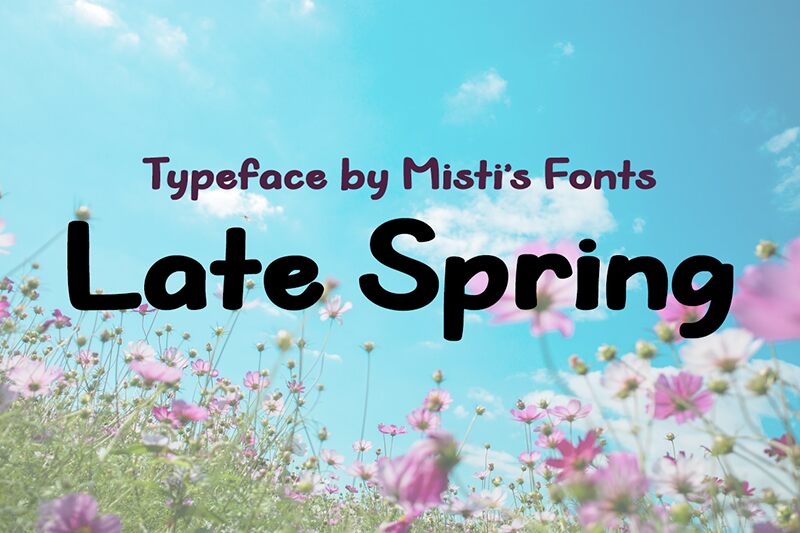
Late Spring font by Misti's Fonts is a free script font that beautifully balances friendly and informal design principles. Its inviting, approachable character makes it a captivating choice for creative projects, offering a casual and modern flair. With rounded and soft letterforms, this font brings a subtle elegance that fits contemporary design applications.
From event invitations and greeting cards to product packaging, branding, and advertising, Late Spring is versatile and adaptable. Its approachable style can also shine in comics, book covers, travel diaries, or any design work that leans towards the expressive and vibrant side.
Late Spring is a bold handwritten typeface that exudes personality and warmth. With its confident strokes and casual charm, this free font is perfect for logos, posters, branding, and social media projects that require a personal, energetic, and eye-catching touch.